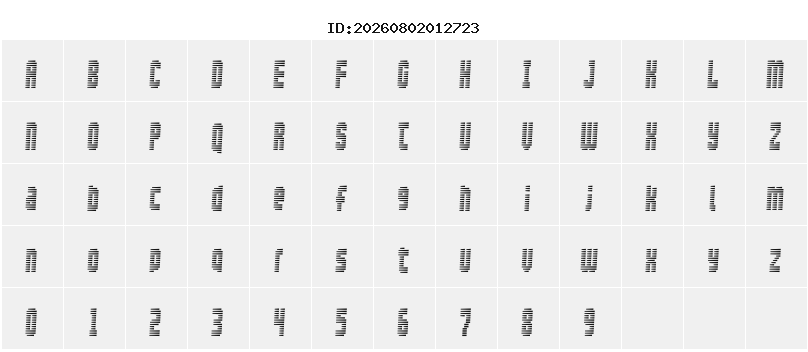
• Font Name: Maximum Security
Maximum Security.ttf is a modern, elegant sans-serif font designed for ultimate readability and visual harmony. Perfect for branding, headlines, web design, and print materials.